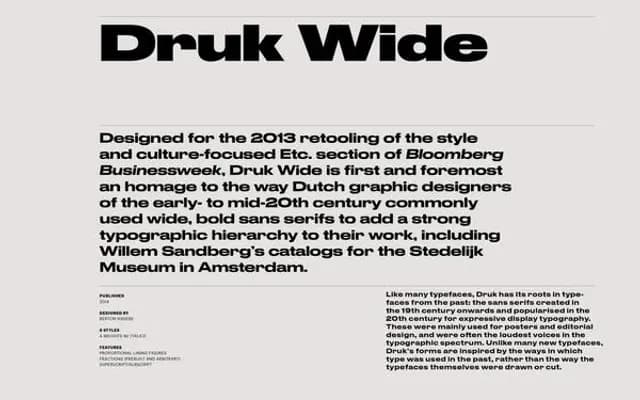
Druk Collection
Commercial Type · Berton Hasebe
Druk Collection specimen from Commercial Type
Berton Hasebe's extreme display grotesque, drawn only in heavy weights across Condensed, standard and Wide widths for posters, mastheads and campaigns.
A heavy display grotesque by Berton Hasebe, with Panagiotis Haratzopoulos and Ilya Ruderman for non-Latin scripts. Druk runs from Medium up to Super only, with no light weights and no normal width, so the family stays focused on uncompromising bold display use. The three widths (Condensed, standard, Wide) plus matching Text cuts can be mixed for bold, expressive typographic layouts. It first appeared as a companion to Neue Haas Grotesk and pairs equally well with Atlas, Graphik and Marr Sans. Reach for it on magazine covers, posters, mastheads and campaign headlines.
Commercial Type describe Druk as a study in extremes: the narrowest, widest and heaviest typefaces in the Commercial Type library to date. Built without a normal width and without lighter-than-medium weights, focused on uncompromising bold display use across multiple widths.